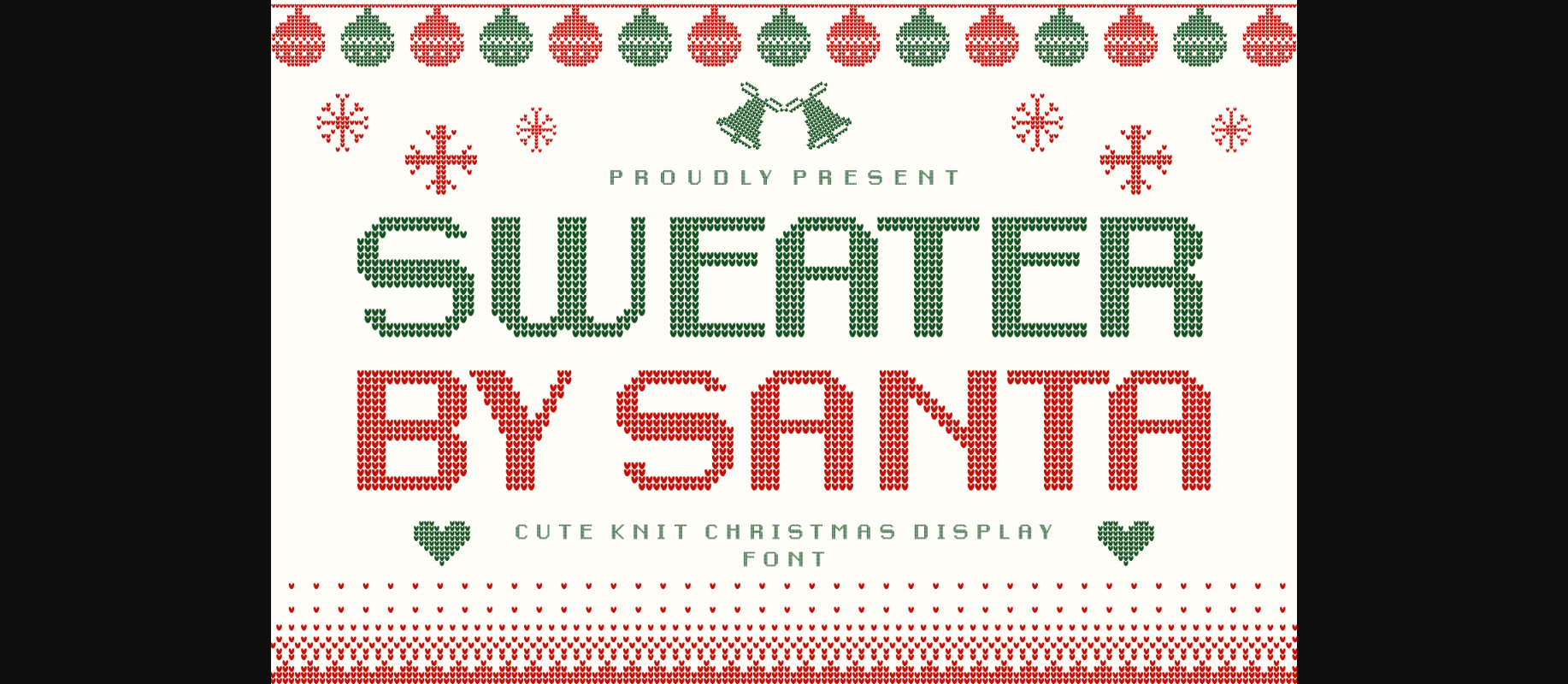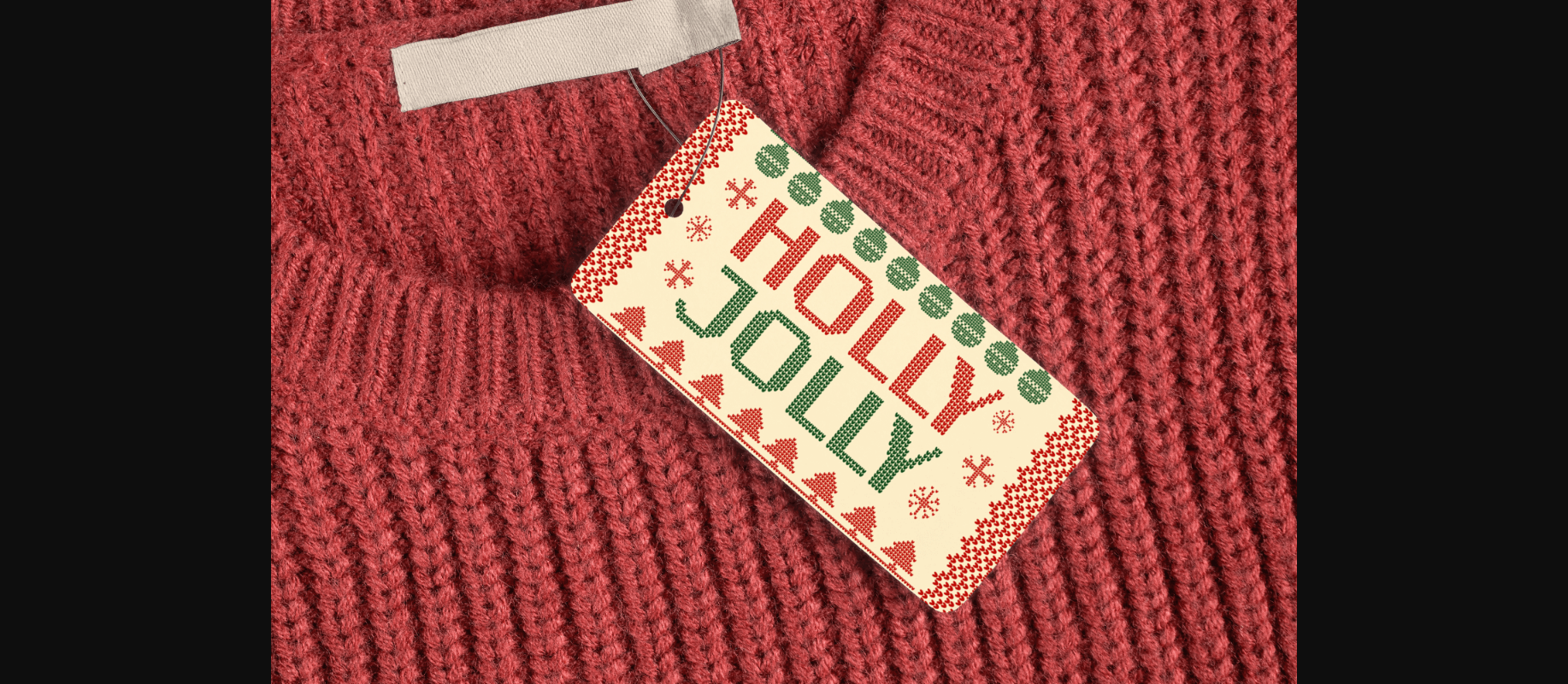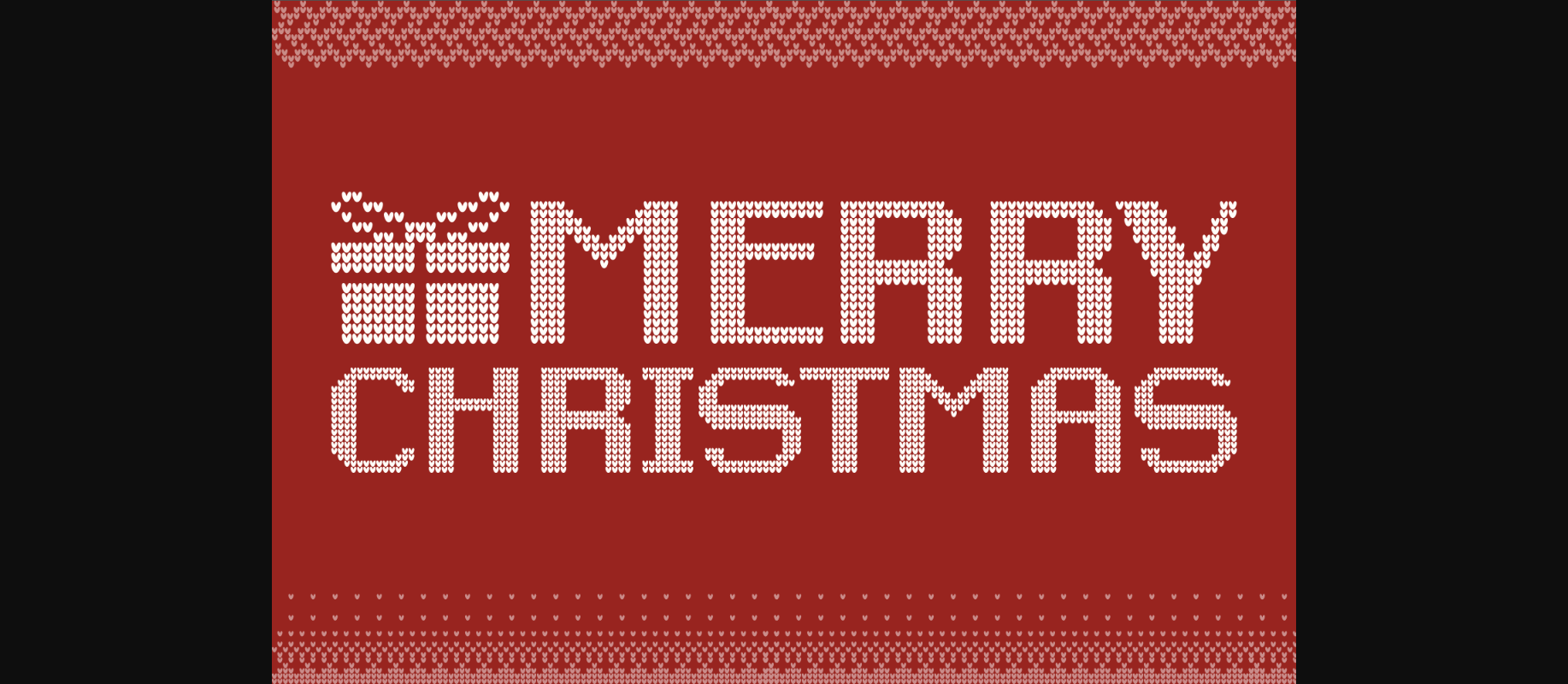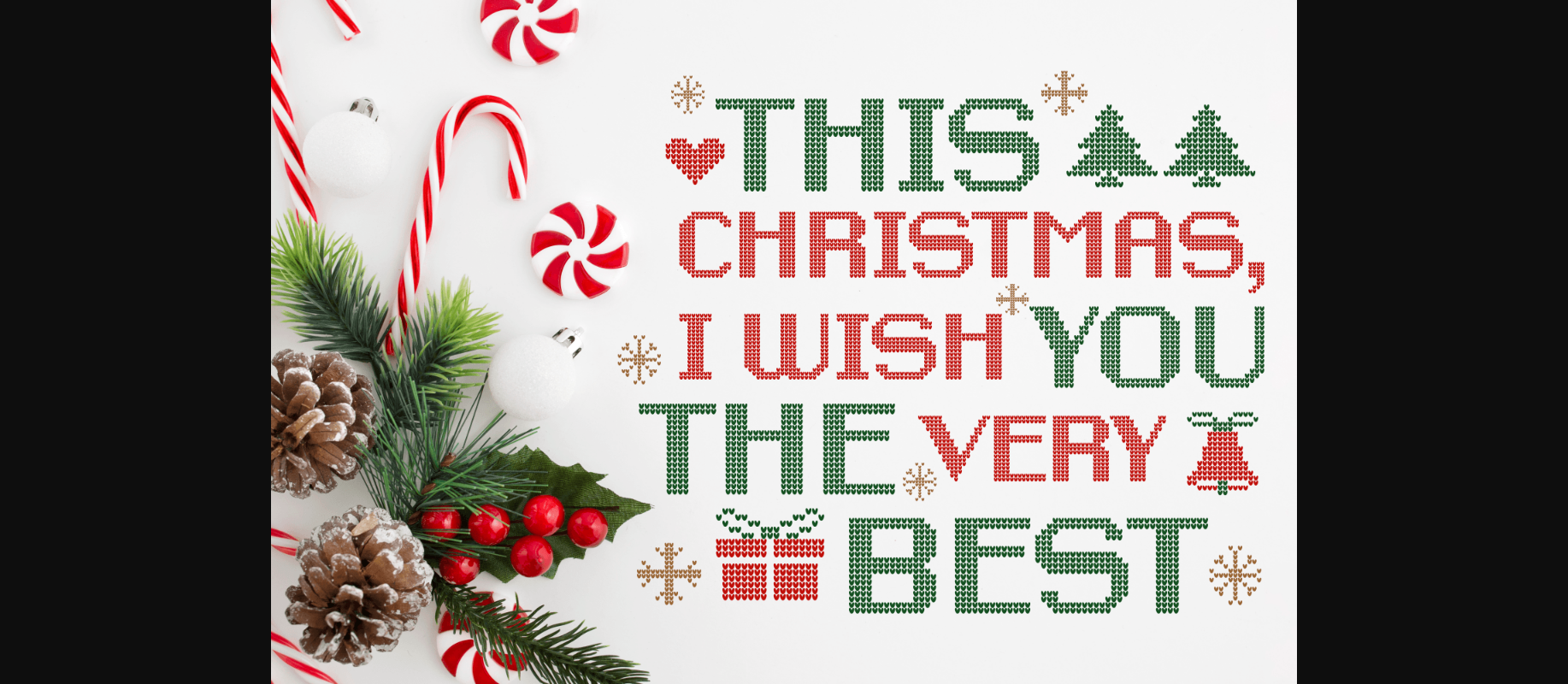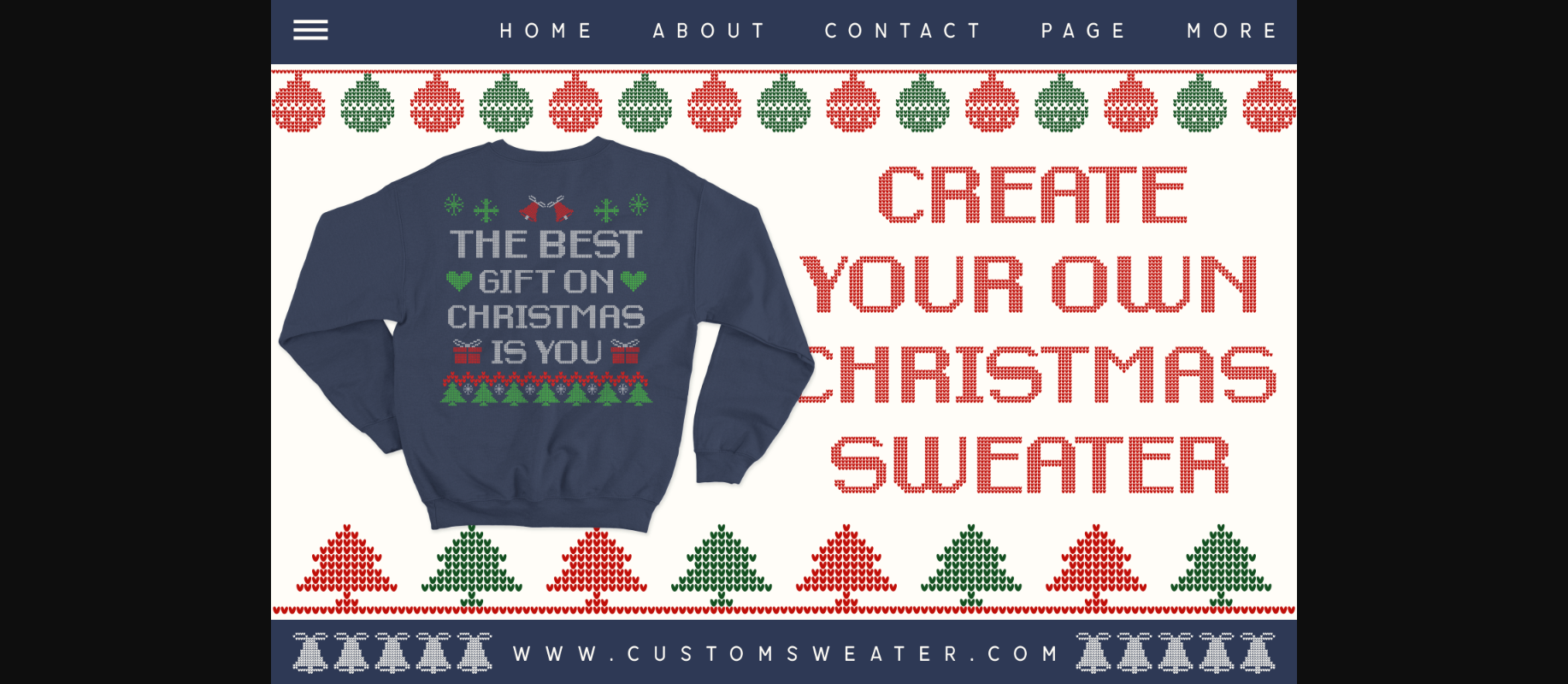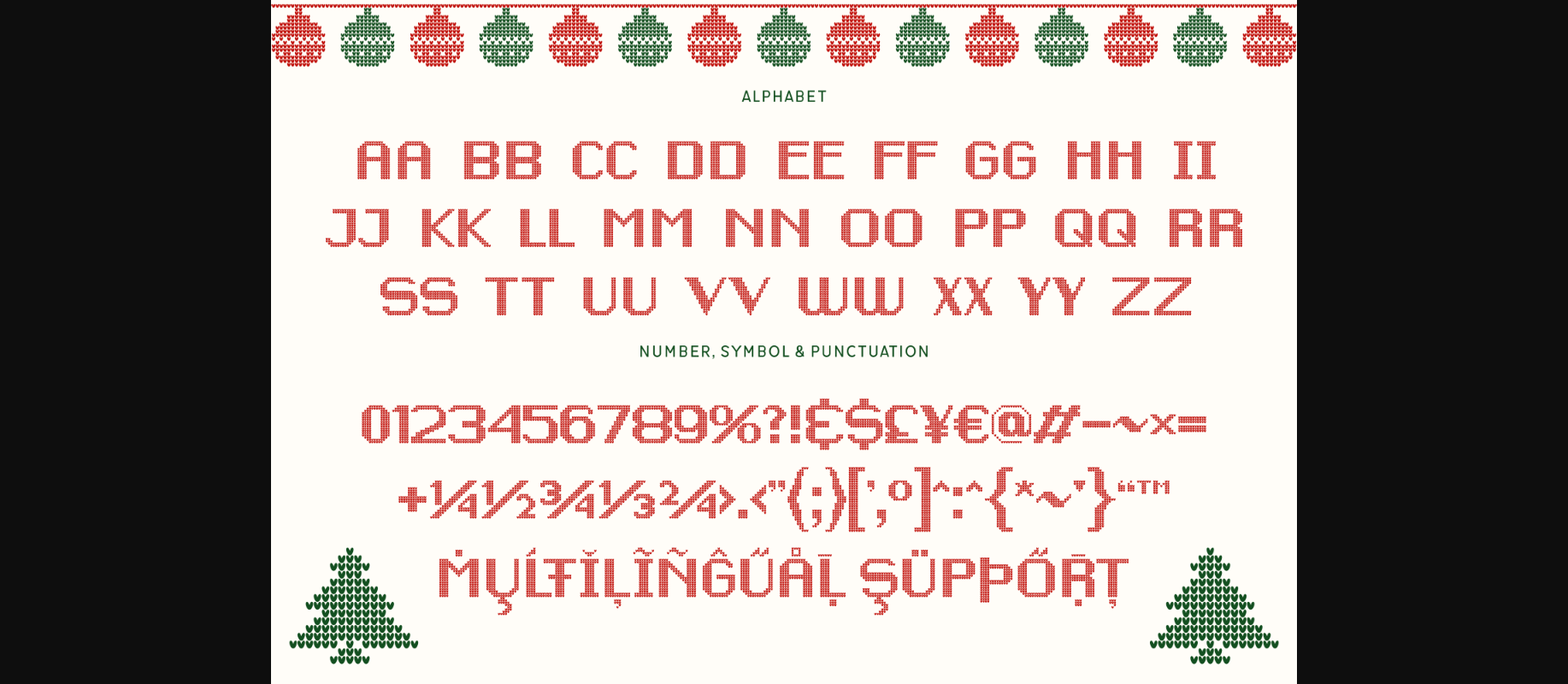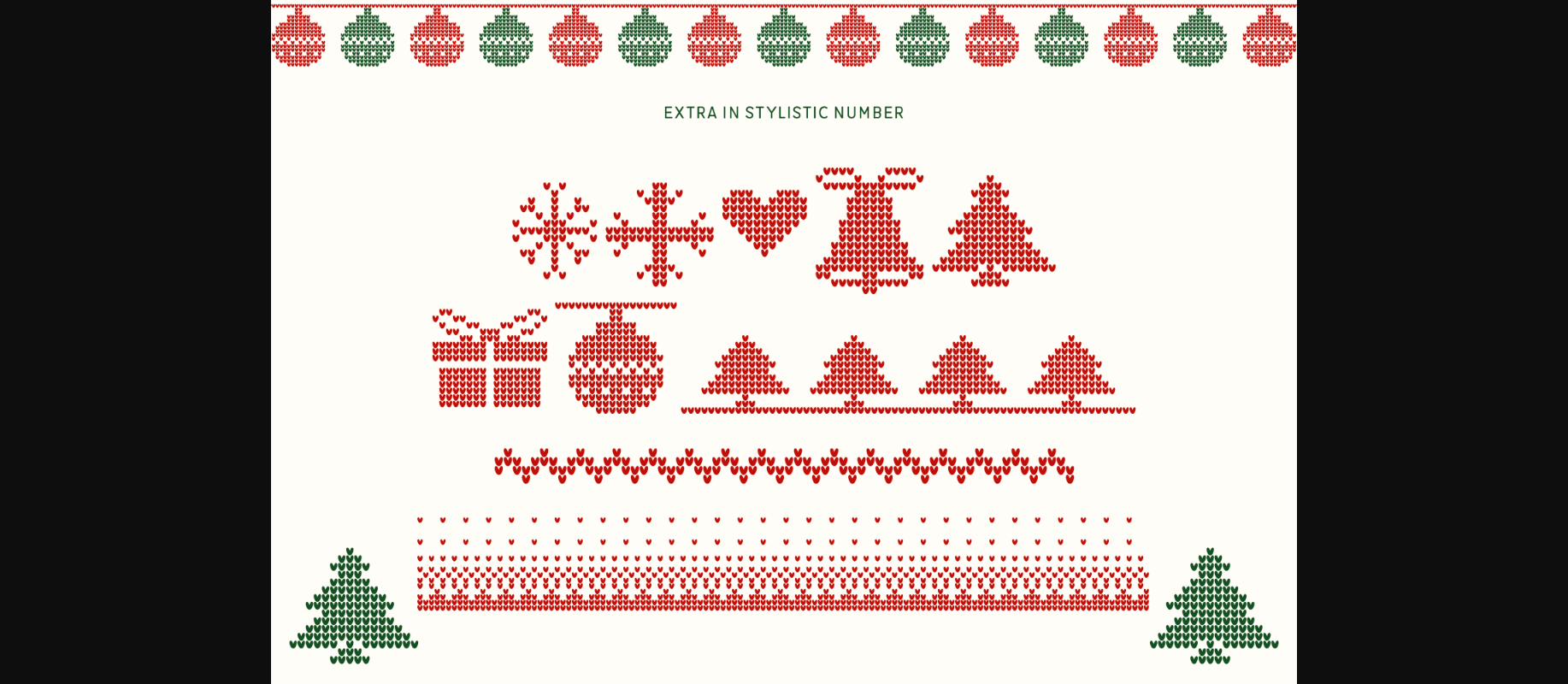
About Sweater by Santa Font
If you’re trying to make your “ugly Christmas sweater” look pretty and nice, Sweater By Santa font is here to help you out. This lovely decorative typeface is perfect for all your Christmas-themed projects, giving them a festive and cozy look.